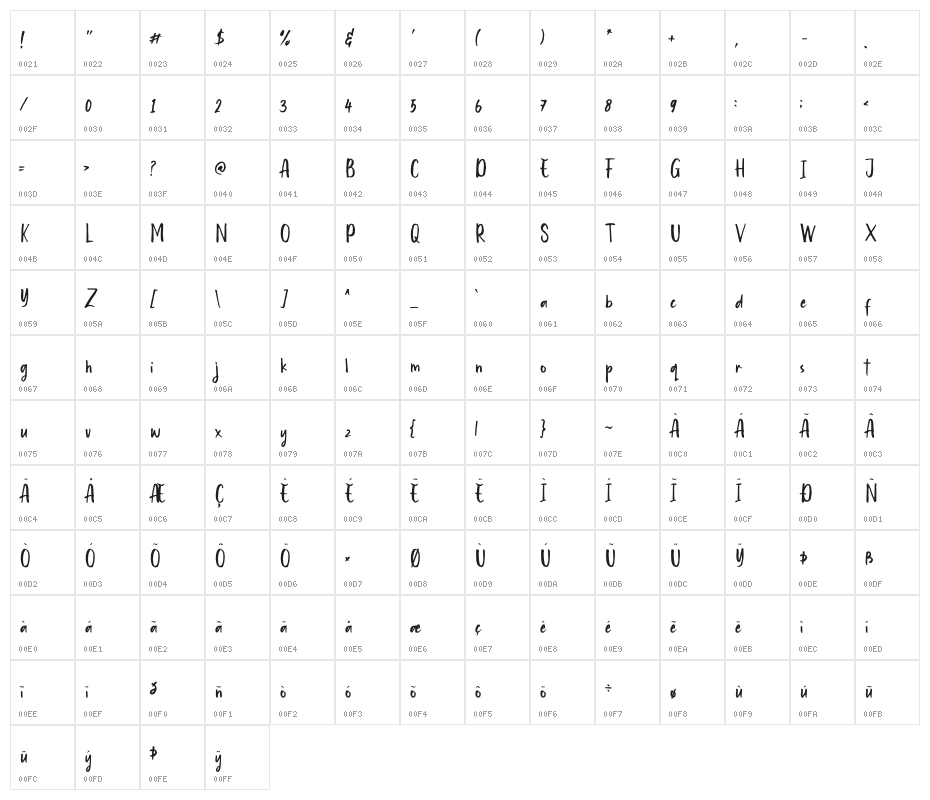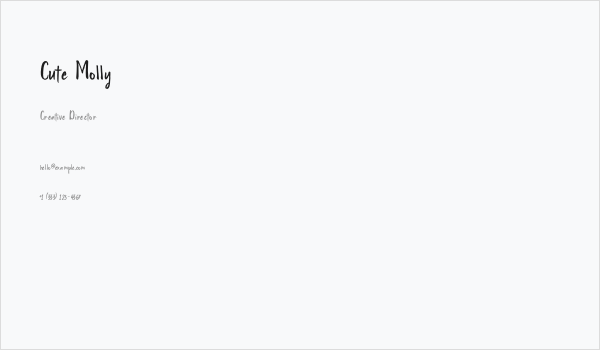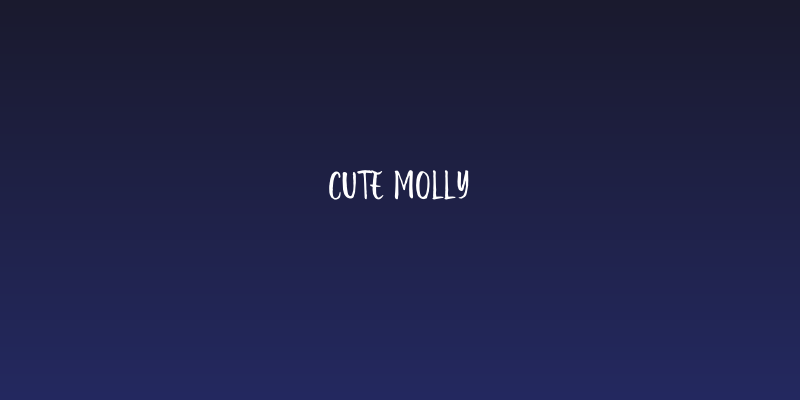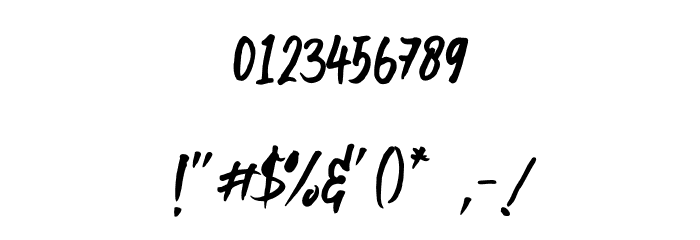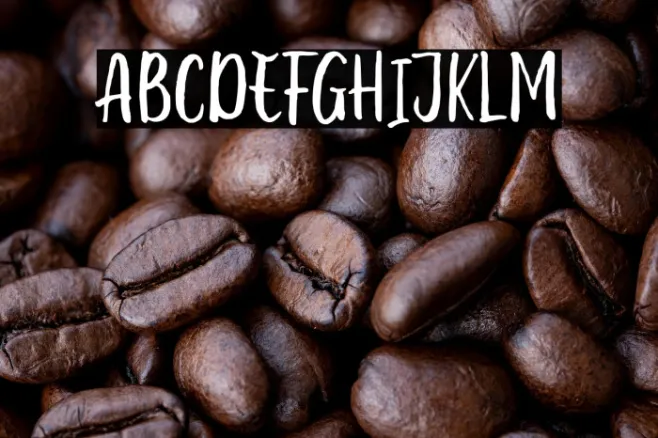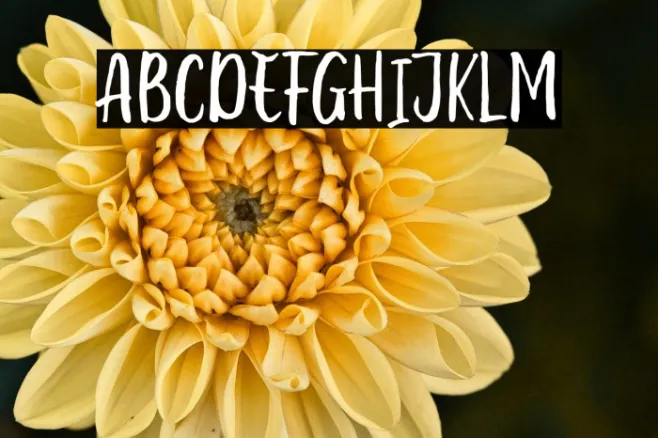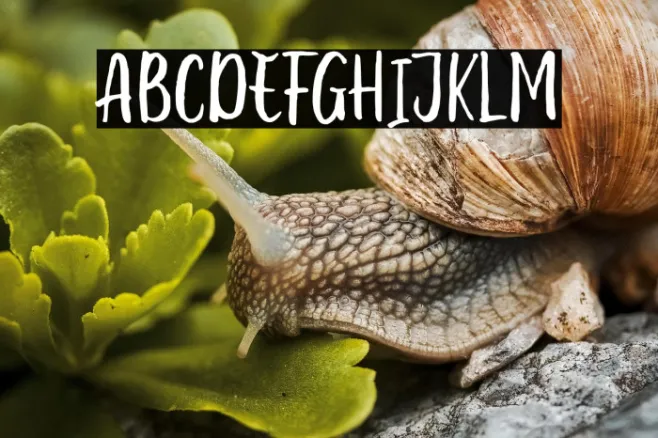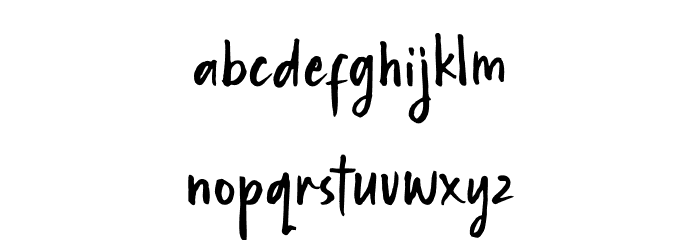
Cute Molly Font
Cute Molly Description
This playful and whimsical font features a handwritten style that exudes a sense of fun and creativity. The characters are slightly irregular, giving it a natural and organic feel. The uppercase letters are bold and prominent, while the lowercase letters maintain a consistent flow with a touch of quirkiness. The numbers are clear and easy to read, matching the overall playful aesthetic. Special characters are included, adding versatility to the font's use. Its unique style makes it perfect for projects that require a personal and friendly touch.
| Use Case | Logos, Headlines, Social Media Graphics |
| Proposed Projects | Ideal for greeting cards, children's books, playful branding, and social media graphics. |